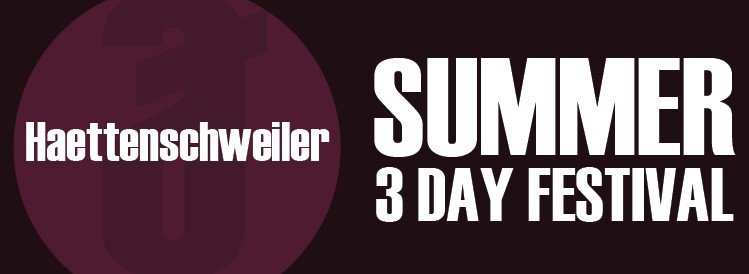
We will be sharing a font in this post that has a stylish appearance and a great look. Presenting the Haettenschweiler Font, which is one of the most downloaded and popular typefaces.
This is the super classy and popular typeface that will give your amazing results. It is similar to nike font that has great brightness characters and contrast looks.
View Of Haettenschweiler Font
Before scroll down, lets see the example of this typeface which we provided by showing all the characters and glyphs contains in this font.
This is the great font for designinging large projects, and having lots of great features and characteristics that is similar to knockout font suitable for all types of designs.